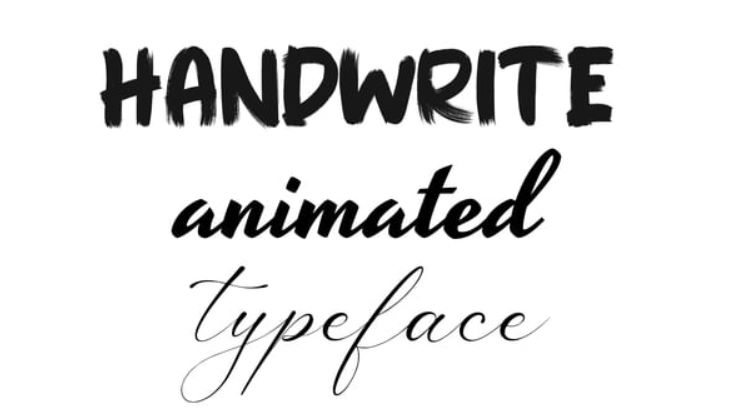
English alphabet Brush (A-Z, 0-9) Marker (A-Z, a-z, 0-9) Calligraphic (A-Z, a-z, 0-9)
Script typeface with auto kerning
If you’re wondering where Videohive Handwrite Typeface shines, it’s usually in projects like: content creation, client work, personal projects, quick prototypes. Basically, anything where pacing matters.